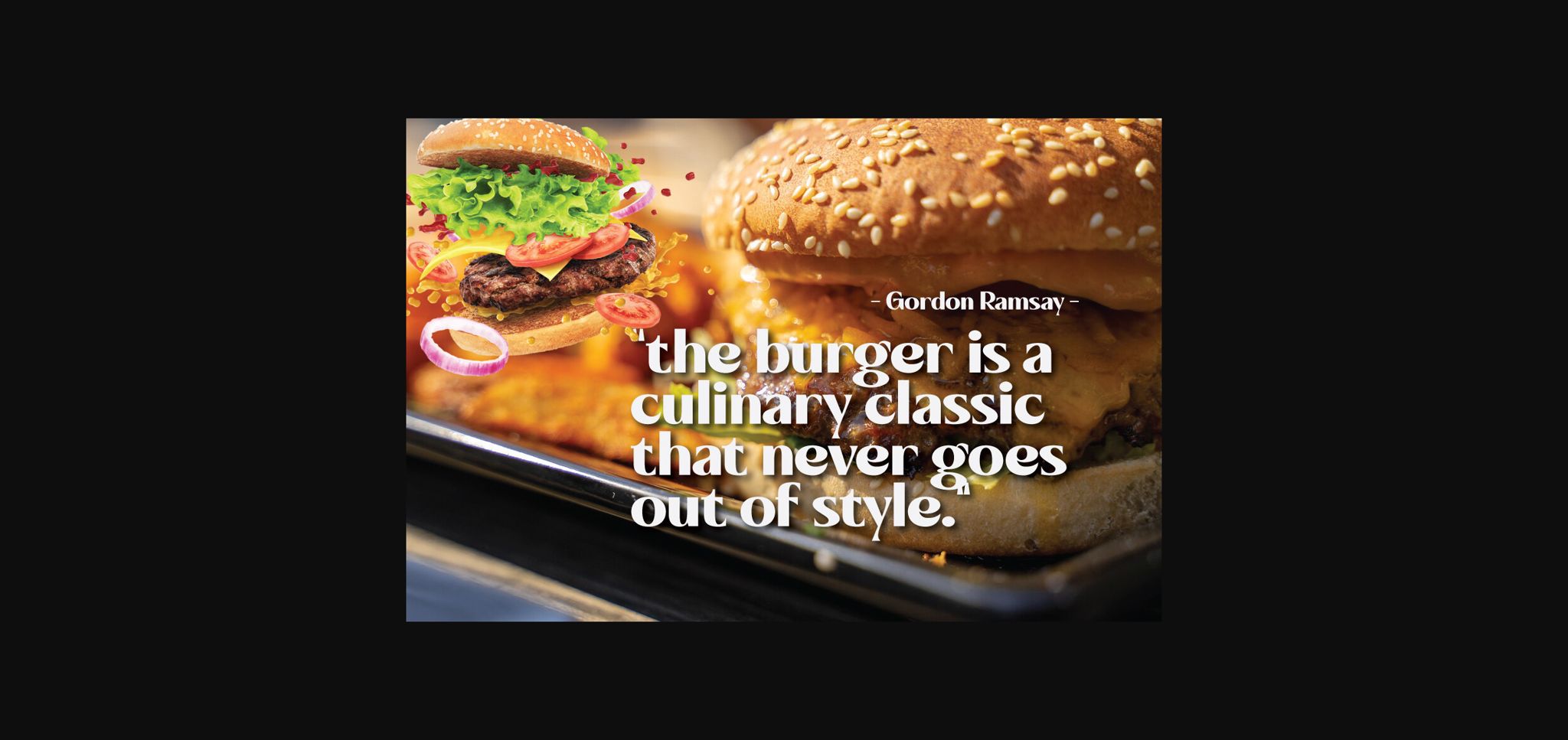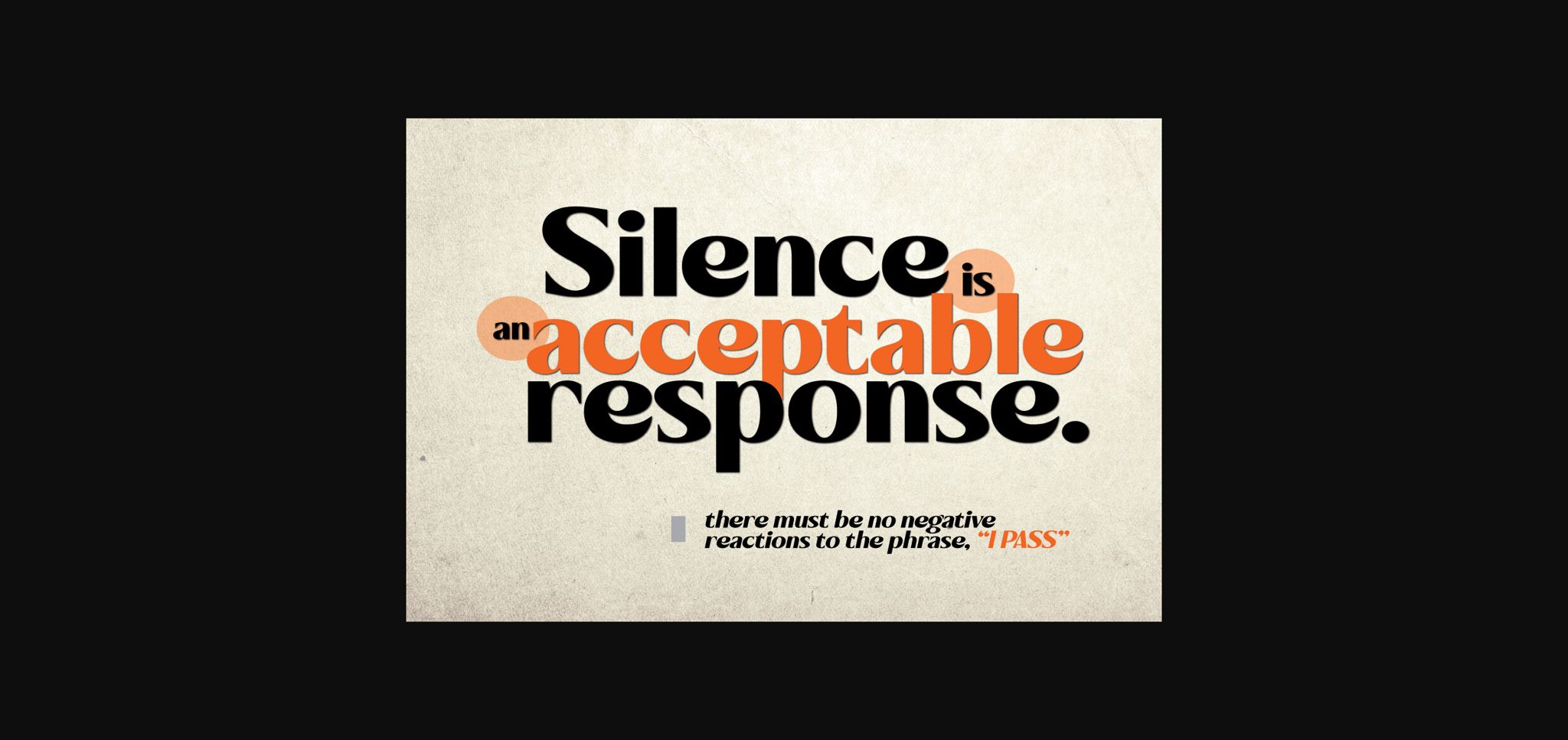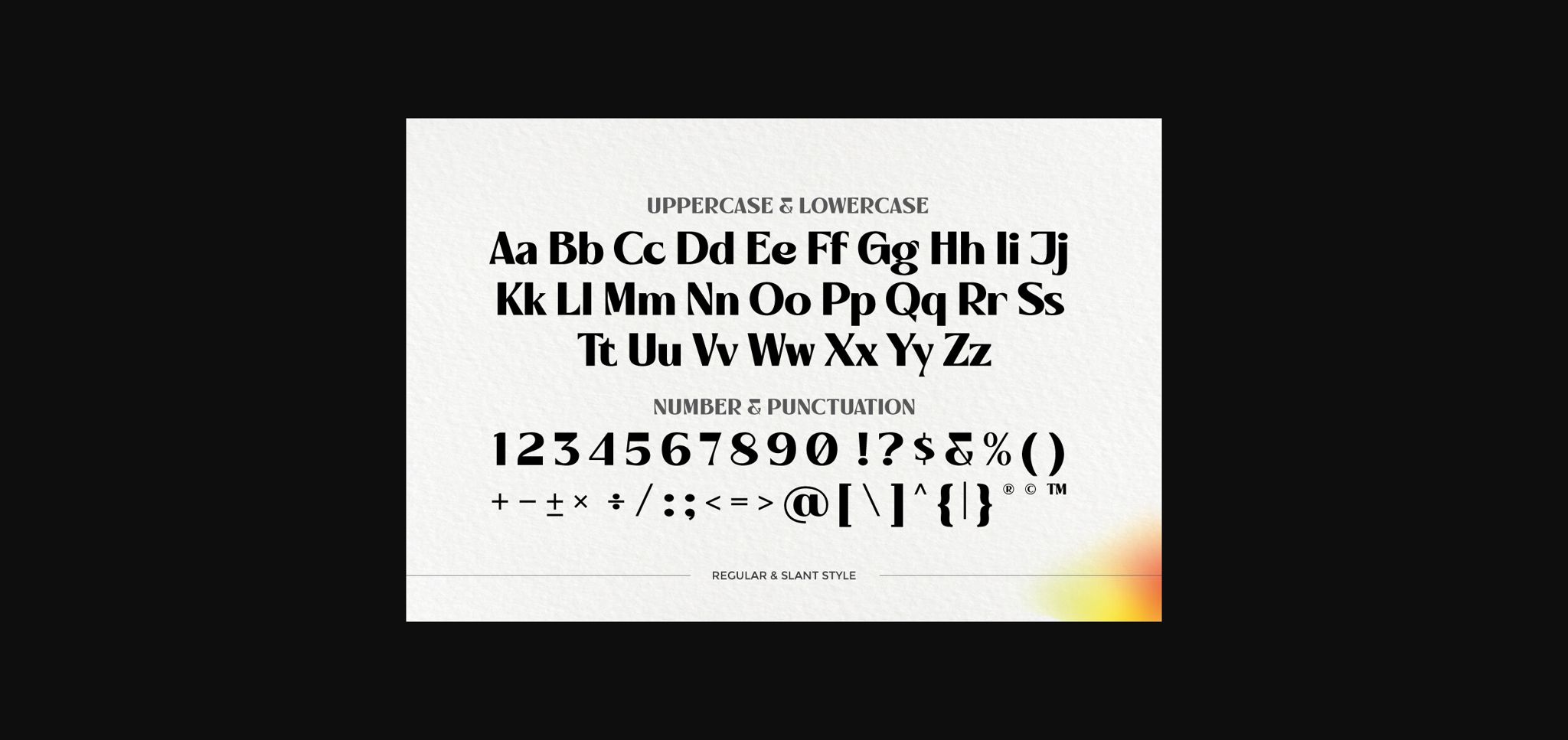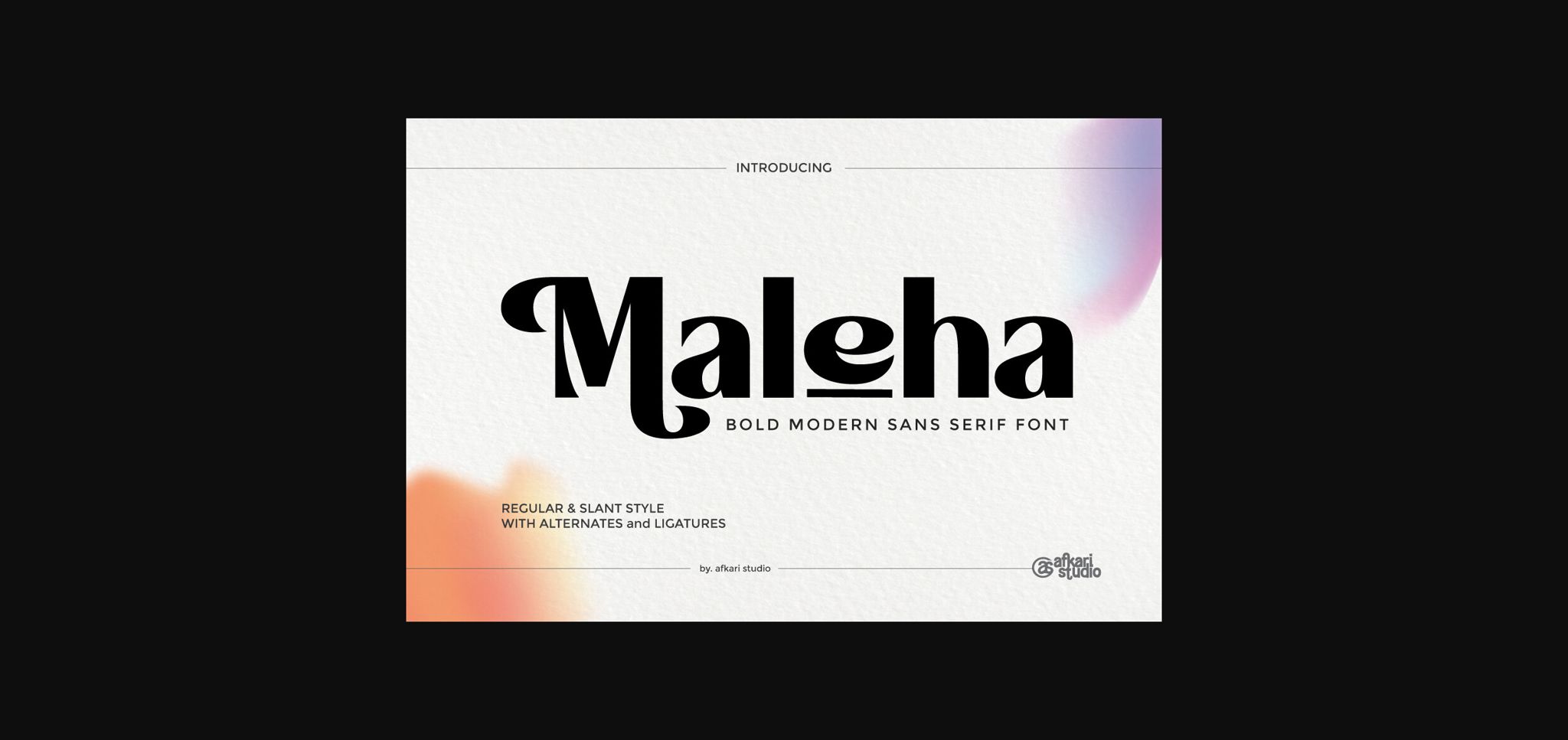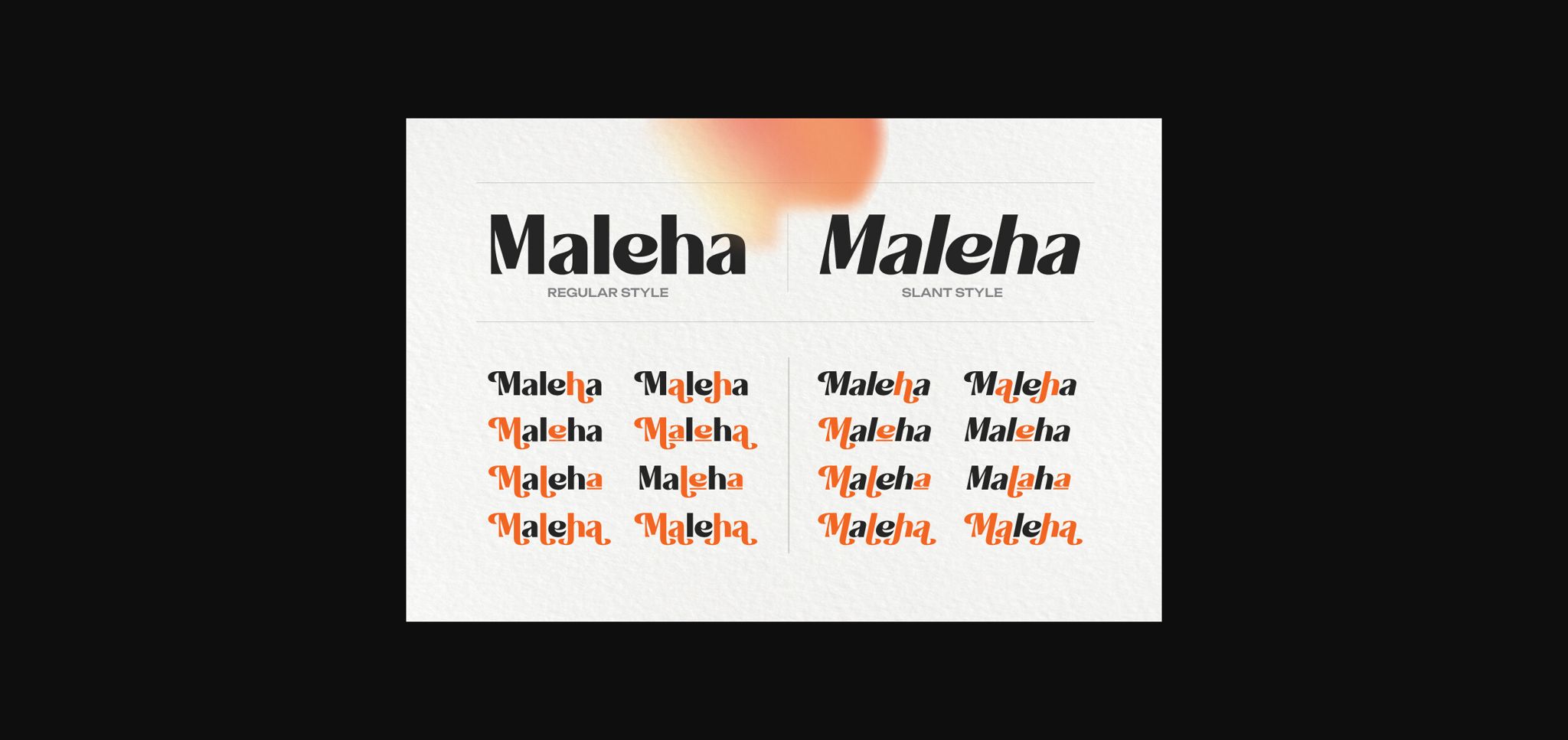
About Maleha Font
Introducing Maleha, a bold and sophisticated modern sans serif font designed to elevate your projects with its confident and sleek aesthetic. Crafted with precision, Maleha embodies a perfect balance between professionalism and contemporary style.
With two versatile styles—regular and slant—Maleha offers a dynamic range of possibilities, enabling you to effortlessly convey a sense of authority and modernity in your designs.